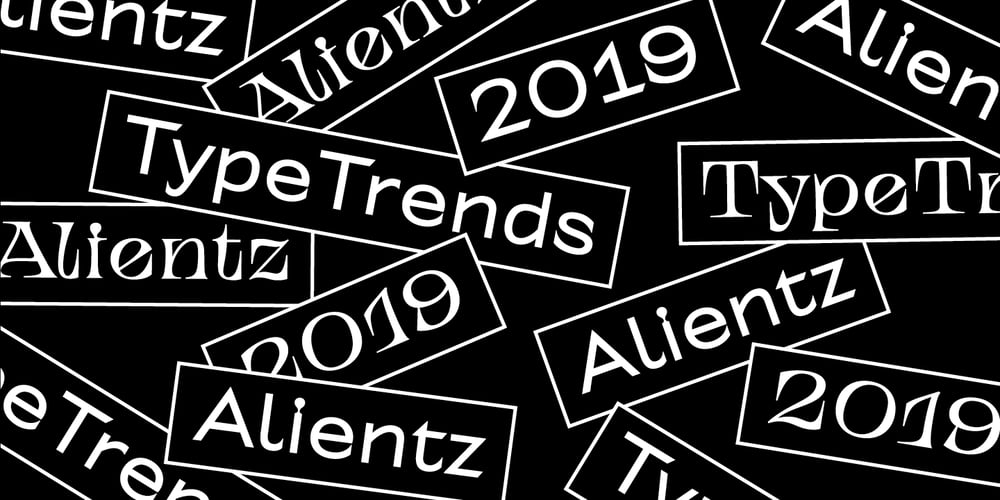
TT Alientz
TT Alientz font
TT Alientz Font Family was designed by TypeType Team and published by TypeType. TT Alientz contains 3 styles and family package options. TT Alientz is a variable* typeface that allows the user to make a visual journey from a laconic extraterrestrial grotesque to a very prickly display serif. As part of this project, we decided to investigate the influence of a foreign substance and the consequent transformation of the original forms, which ultimately leads to extreme visual changes.The TT Alientz family consists of 3 fonts: grotesque, serif and variable* font. Each font contains more than 470 glyphs. In addition to broad language support (including Cyrillic), the typeface has stylish ligatures, contextual alternates, and old-style figures. Variability in the typeface affects the changes in the overall style of the font—moving the slider to adjust the variable axis, you can go from a laconic grotesque to an extreme serif.TT Alientz Grotesque is a fairly neat hipster grotesque, but with its own small features. In the design of some letters of the grotesque you can find small sharp elements that add uniqueness and character to the font when used in large inscriptions and headings. At the same time, when you use the font in a small size of the size and in text blocks, sharp elements do not greatly affect its readability. The design of some letters of the grotesque is quite peculiar and is intended to emphasize the initial concept of slight ‘alienness’.TT Alientz Serif is an ‘infected’ TT Alientz Grotesque and the result of changes to it. Unlike the grotesque, the serif is dynamic, viscous, ductile and very prickly. Serif has a lot of smooth lines and not quite standard strokes contrast. It can be noted that most serifs in the antiqua are pointed inward, not outward. Despite its extremeness, the serif will look good both in large and in small body sizes.*An important clarification regarding variable fonts. At the moment, not all graphic editors, programs and browsers support variable fonts. You can check the status of support for the variability of your software here: v-fonts.com/support/FOLLOW US:Instagram | Facebook | WebsiteTT Alientz supports more than 160+ languages, such as: Acehnese, Afar, Albanian, Alsatian, Aragonese, Arumanian, Asu, Aymara, Banjar, Basque, Belarusian (cyr), Bemba, Bena, Betawi, Bislama, Boholano, Bosnian (cyr), Bosnian (lat), Breton, Bulgarian (cyr), Cebuano, Chamorro, Chiga, Colognian, Cornish, Corsican, Cree, Croatian, Czech, Danish, Embu, English, Erzya, Estonian, Faroese, Fijian, Filipino, Finnish, French, Friulian, Gaelic, Gagauz (lat), Galician, German, Gusii, Haitian Creole, Hawaiian, Hiri Motu, Hungarian, Icelandic, Ilocano, Indonesian, Innu-aimun, Interlingua, Irish, Italian, Javanese, Judaeo-Spanish, Kabuverdianu, Kalenjin, Karachay-Balkar (lat), Karaim (lat), Karakalpak (lat), Kashubian, Khasi, Khvarshi, Kinyarwanda, Kirundi, Kongo, Kumyk, Kurdish (lat), Ladin, Latvian, Laz, Leonese, Lithuanian, Luganda, Luo, Luxembourgish, Luyia, Macedonian, Machame, Makhuwa-Meetto, Makonde, Malagasy, Malay, Manx, Maori, Marshallese, Mauritian Creole, Minangkabau, Moldavian (lat), Montenegrin (cyr), Montenegrin (lat), Mordvin-moksha, Morisyen, Nahuatl, Nauruan, Ndebele, Nias, Nogai, Norwegian, Nyankole, Occitan, Oromo, Palauan, Polish, Portuguese, Quechua, Rheto-Romance, Rohingya, Romanian, Romansh, Rombo, Rundi, Russian, Rusyn, Rwa, Salar, Samburu, Samoan, Sango, Sangu, Scots, Sena, Serbian (cyr), Serbian (lat), Seychellois Creole, Shambala, Shona, Slovak, Slovenian, Soga, Somali, Sorbian, Sotho, Spanish, Sundanese, Swahili, Swazi, Swedish, Swiss German, Tagalog, Tahitian, Taita, Tatar, Tetum, Tok Pisin, Tongan, Tsonga, Tswana, Turkish, Turkmen (lat), Ukrainian, Uyghur, Vepsian, Volapük, Võro, Vunjo, Walloon, Xhosa, Zaza, Zulu.